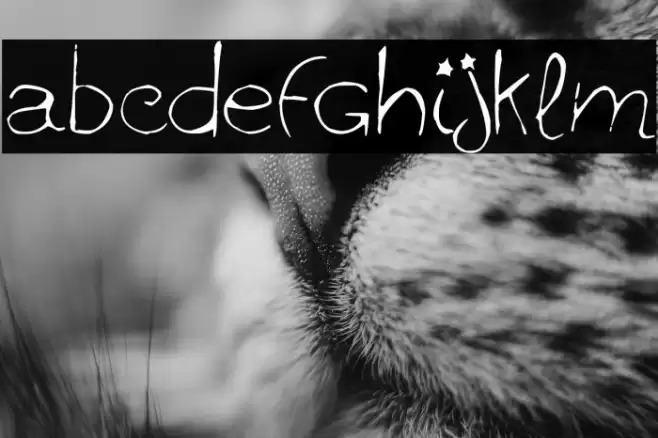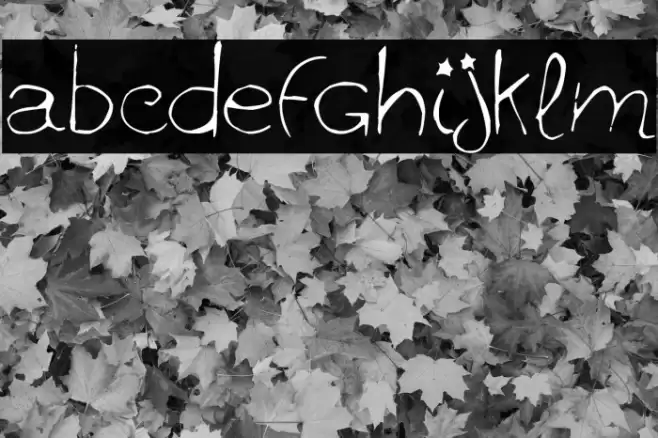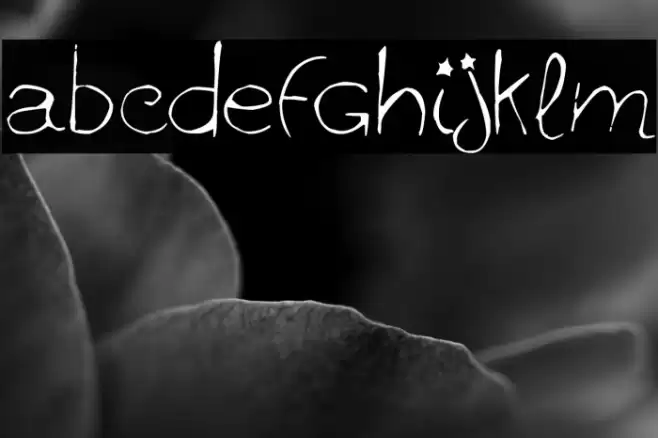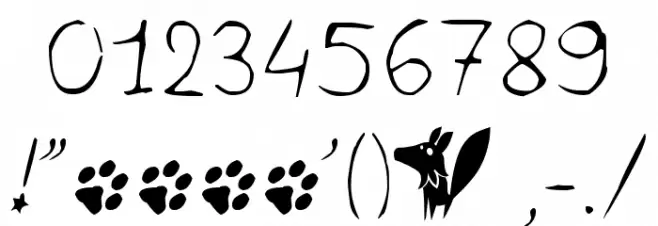
ginolib* Font
ginolib* Description
This font features a whimsical and playful handwritten style, characterized by its irregular strokes and unique character shapes. The letters have a casual, flowing appearance with varying heights and angles, giving it a lively and dynamic feel. The inclusion of decorative elements, such as stars on the 'i' and 'j', adds a touch of creativity and fun. The numbers and special characters maintain the same playful aesthetic, with some characters incorporating illustrative elements like paw prints and a fox head. This font is perfect for projects that require a personal and artistic touch.
A whimsical, playful handwritten font with unique decorative elements from Uncategorized fonts.
- Font: ginolib*
- Proposed Projects: Ideal for children's books, greeting cards, playful branding, and creative invitations.
- Use Case: Logos, Headlines, Creative projects